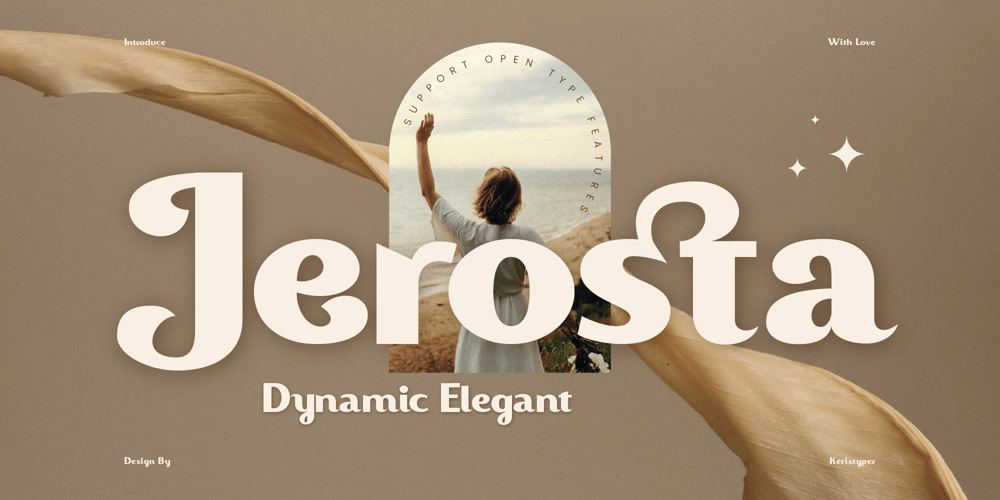
Jerosta Font Family was designed by Tezar Tantular and published by Keristyper Studio. Jerosta contains 1 styles and family package options. Jerosta is a modern Sans Serif font with a dynamic and elegant style. Its clean and geometric lines give it a contemporary look while its unique letterforms add a touch of sophistication. With its versatile design, Jerosta can be used for a wide range of applications, from branding to editorial design and beyond.Featured: Standard Uppercase & Lowercase Numeral & Punctuation Multilingual : ä ö ü Ä Ö Ü ß ¿ ¡ Alternate & Ligature PUA encoded We recommend programs that support the Open Type feature and the Glyphs panel such as Adobe applications or Corel Draw, so you can use all the variations of the glyphs.Hope you enjoy our fonts!